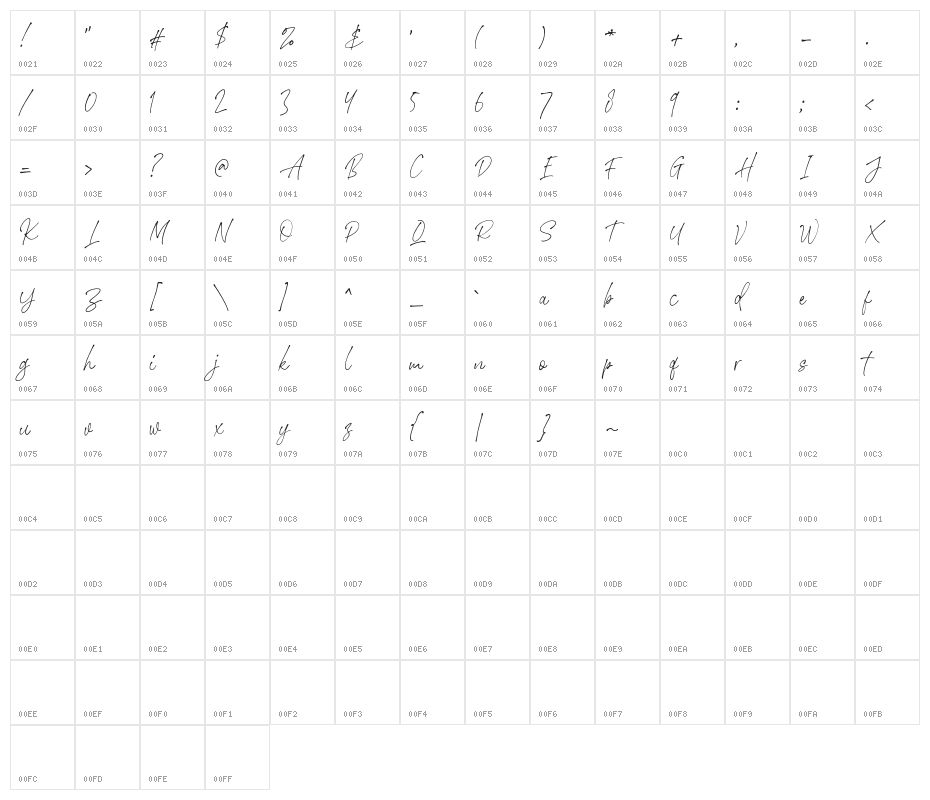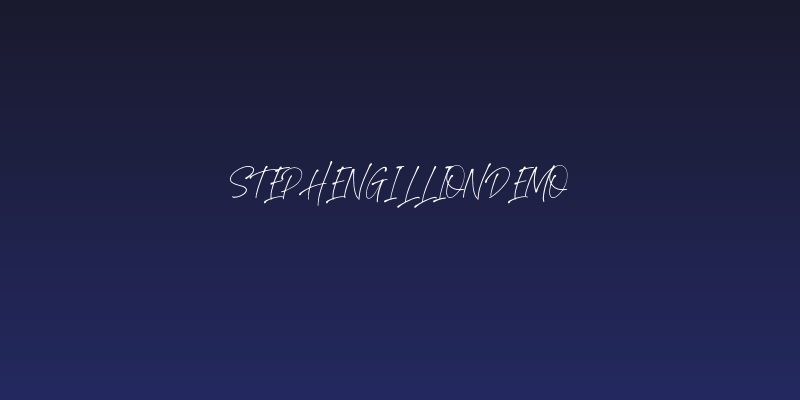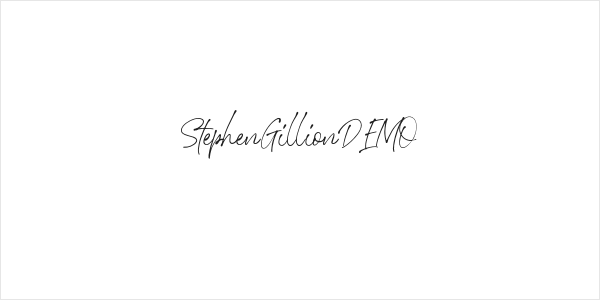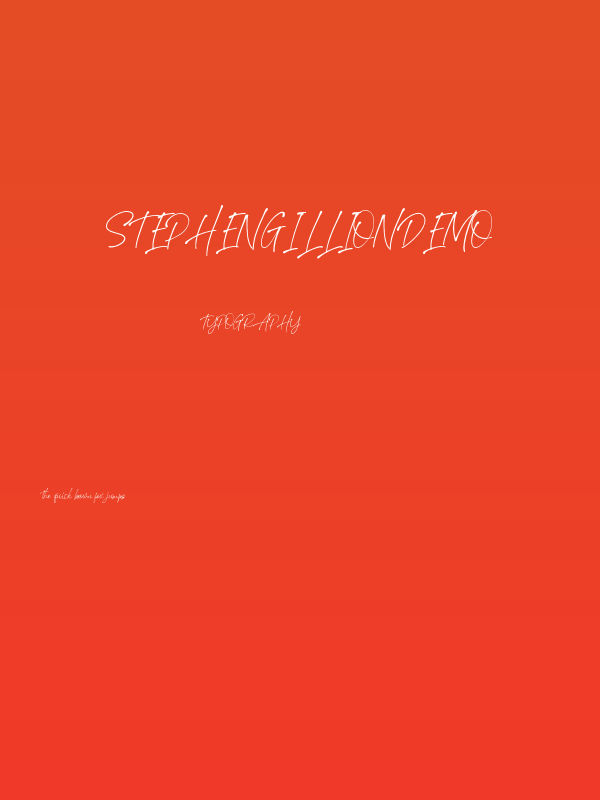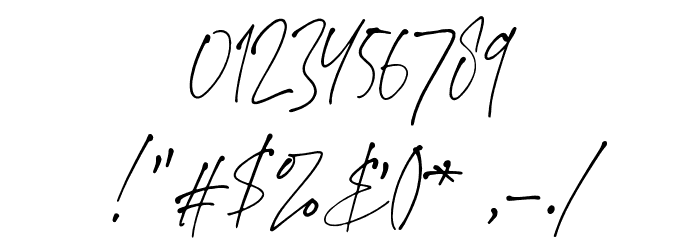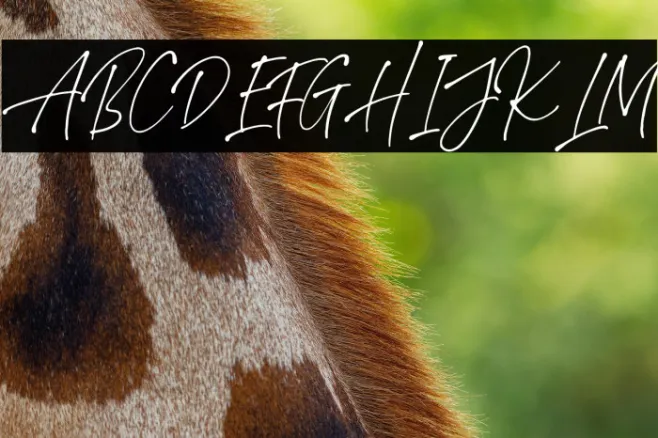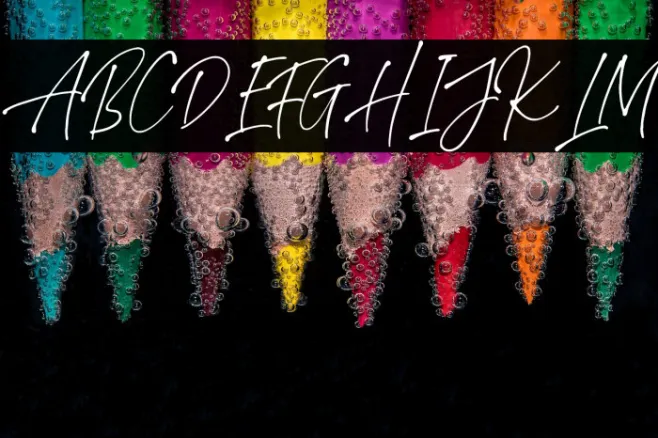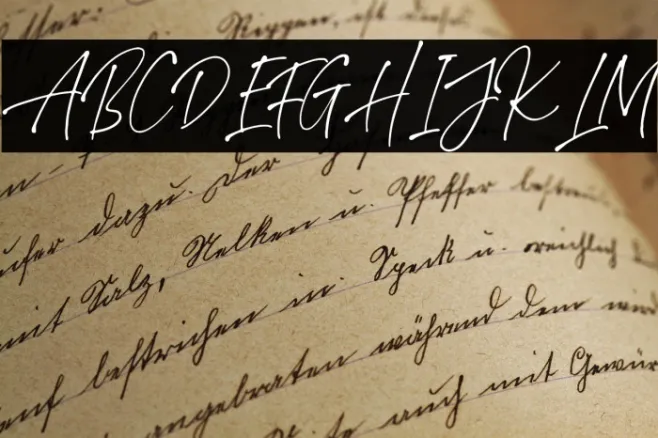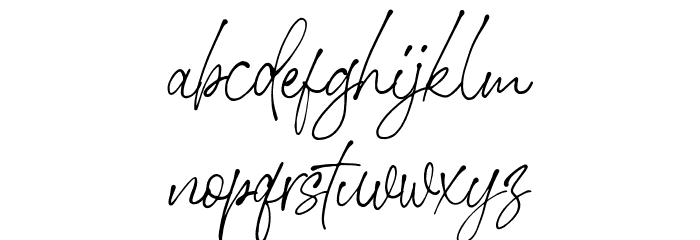
StephenGillionDEMO Font
StephenGillionDEMO Description
This font exudes a lively and dynamic personality with its fluid, cursive style. The characters are elegantly connected, giving a sense of continuous motion and energy. The uppercase letters are bold and expressive, while the lowercase letters maintain a graceful flow. The numerals and special characters are consistent with the overall handwriting style, adding a touch of sophistication. This font is perfect for projects that require a personal, handwritten touch, such as invitations, greeting cards, or branding materials. Its unique style captures attention and conveys a sense of creativity and elegance.